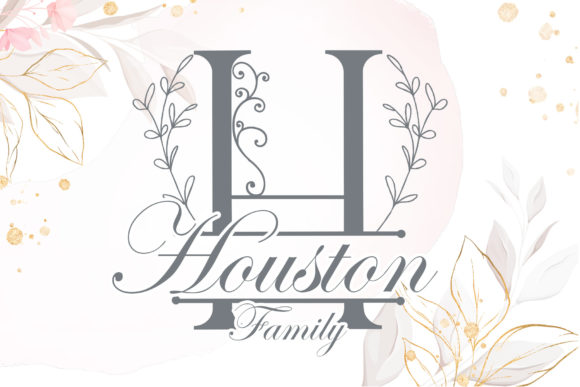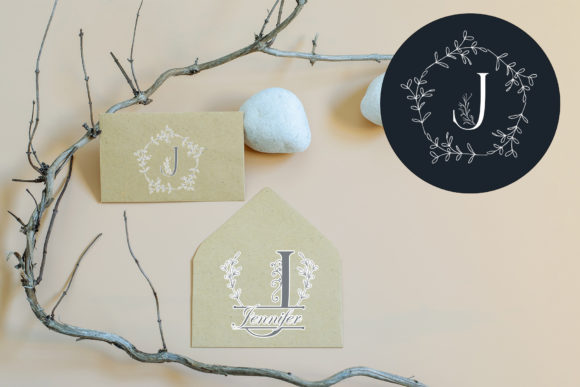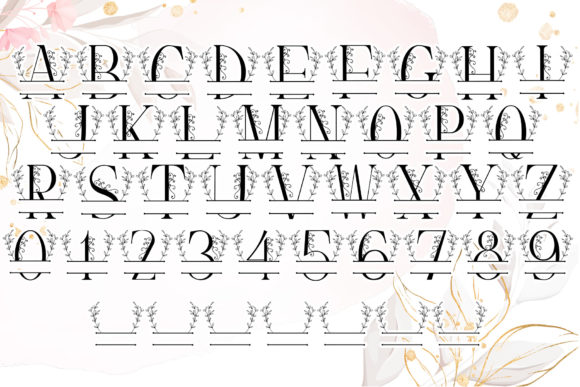
Introduction to Simple Leaves Monogram Font Font
Fonts play a crucial role in design, and the Simple Leaves Monogram Font font is a typeface that brings both character and versatility to any project. Whether you’re working on a branding project, a website, or a print design, the Simple Leaves Monogram Font font offers a unique style that can elevate your work.
Simple Leaves Monogram is a delicate and sweet decorative font.
It looks stunning on wedding invitations, thank you cards, quotes, greeting cards, logos, business cards and every other design which needs a unique touch .
Key Features of Simple Leaves Monogram Font Font
Why Choose Simple Leaves Monogram Font Font?
The Simple Leaves Monogram Font font is more than just a typeface – it’s a design tool that helps you communicate your message with style and clarity. Its unique character set and versatile design make it suitable for a wide range of applications, from elegant invitations to bold headlines.
With its carefully crafted letterforms and balanced proportions, the Simple Leaves Monogram Font font ensures readability and visual appeal across all mediums.
What makes Simple Leaves Monogram Font font special?
The Simple Leaves Monogram Font font stands out with its unique design, exceptional readability, and versatility across various design applications.